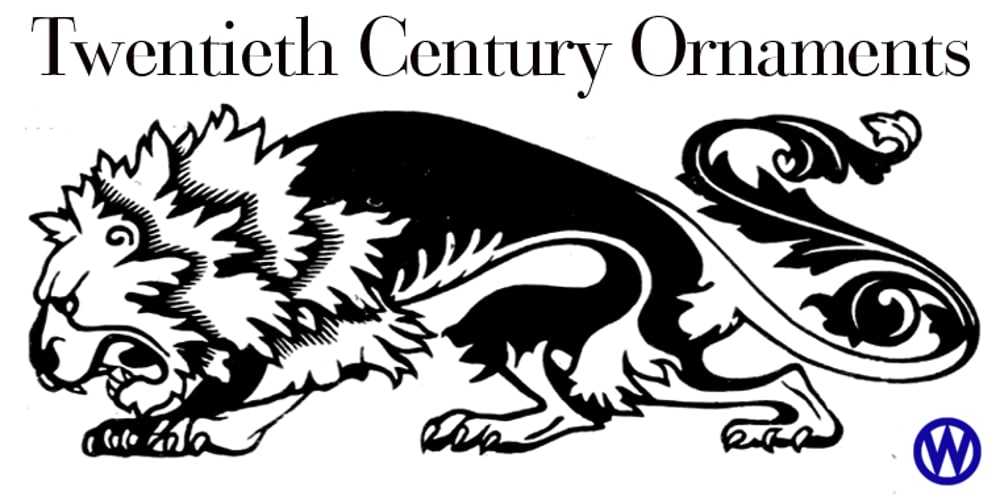
XX Century Ornaments
XX Century Ornaments font
XX Century Ornaments Font Family was designed by Gert Wiescher and published by Wiescher Design. XX Century Ornaments contains 1 styles and family package options. XX-Century-Ornaments are another trouvaille. Great looking ornaments, columns, eagles and lions by Gert Wiescher